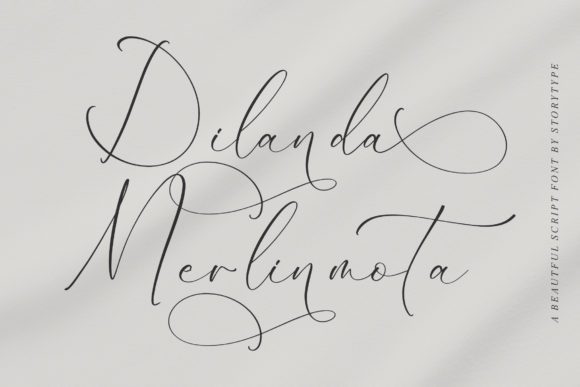
Unleash your creativity with Dilanda Merlinmota, the captivating script font that transforms your designs into works of art. Its breathtaking ligatures and delicate swashes add an aura of elegance and charm, making it the perfect choice for an array of projects.
Add a touch of magic to your branding with Dilanda Merlinmota, the script font that exudes sophistication and luxury. Its carefully crafted characters, inspired by the beauty of calligraphy, give your designs a distinctive edge that will leave a lasting impression.
Picture your designs adorned with the enchanting curves and flourishes of Dilanda Merlinmota. From wedding invitations to fashion branding, this font will elevate your projects to new heights of beauty and refinement. Let your creativity flow as you explore the endless possibilities of this versatile font.
Unlock the potential of your designs with Dilanda Merlinmota, the script font that captivates and inspires. Transform your words into works of art and leave your audience spellbound by the sheer elegance of your creations. Indulge in the beauty of Dilanda Merlinmota today and let your imagination soar.